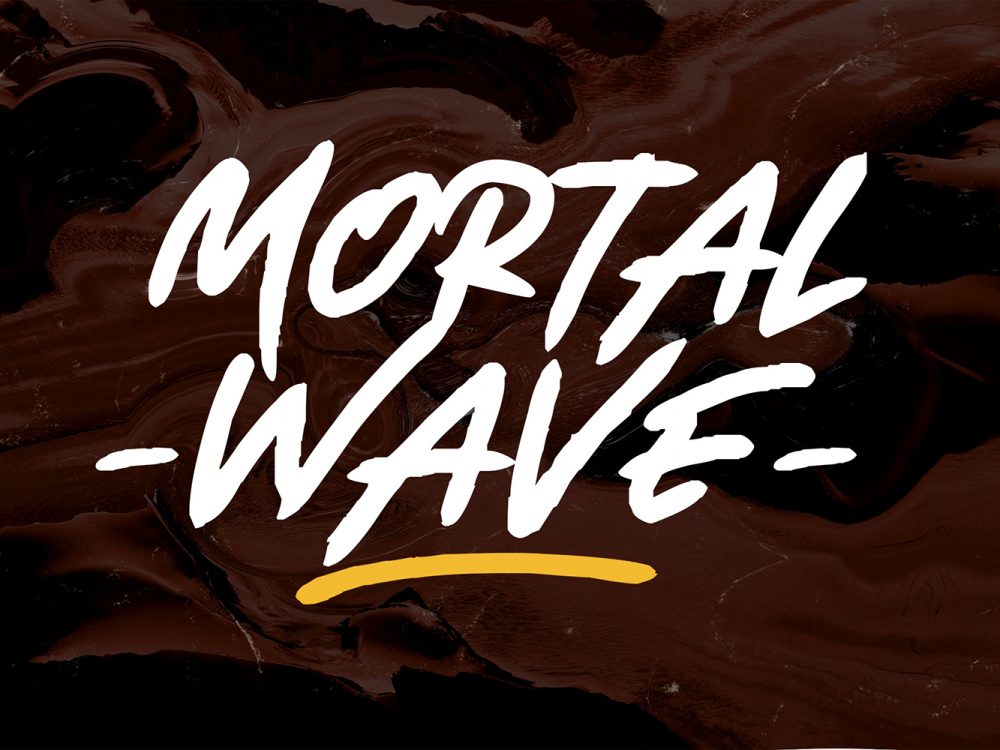
Mortal Wave Free Font
Mortal Wave Free Font is a handwritten font that simulates writing with a brush and will help you create unique design projects and improve your professional level. Use this font to create memorable posters, wedding invitations, cards, branding, flyers, and more. Improve the quality and increase the popularity of your design projects by using this font. If you like it don’t forget to check out the full version.